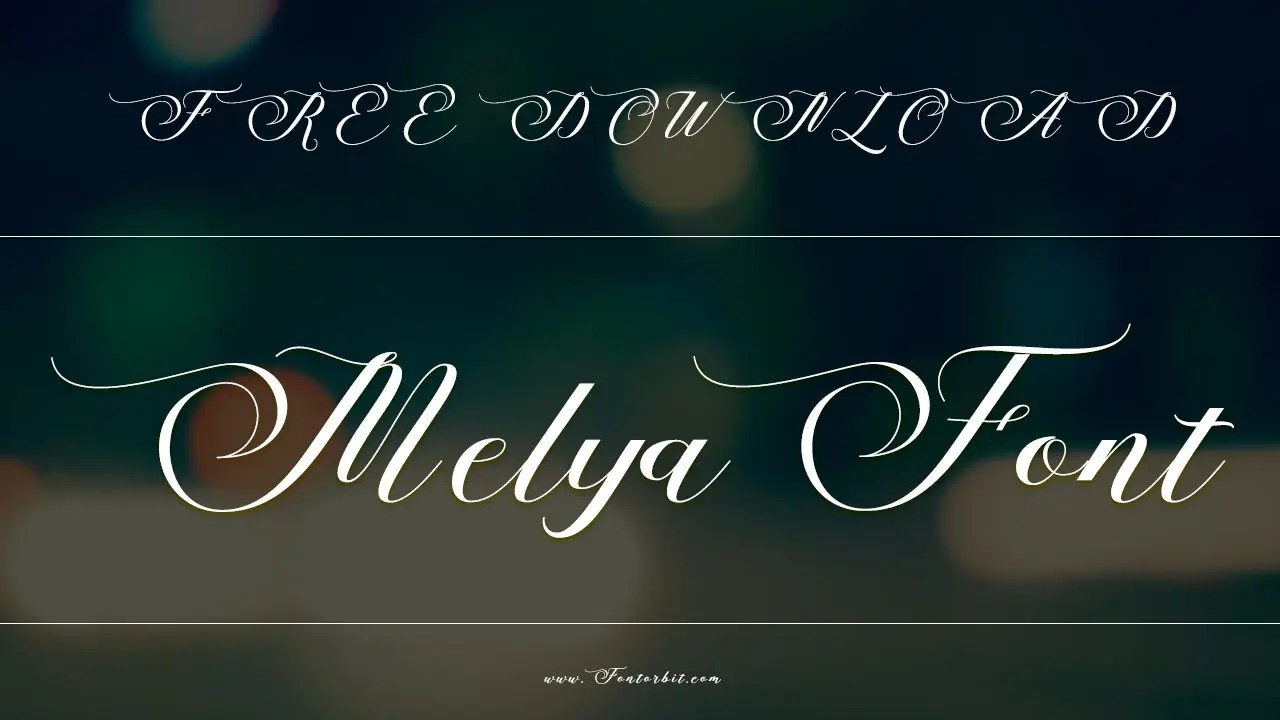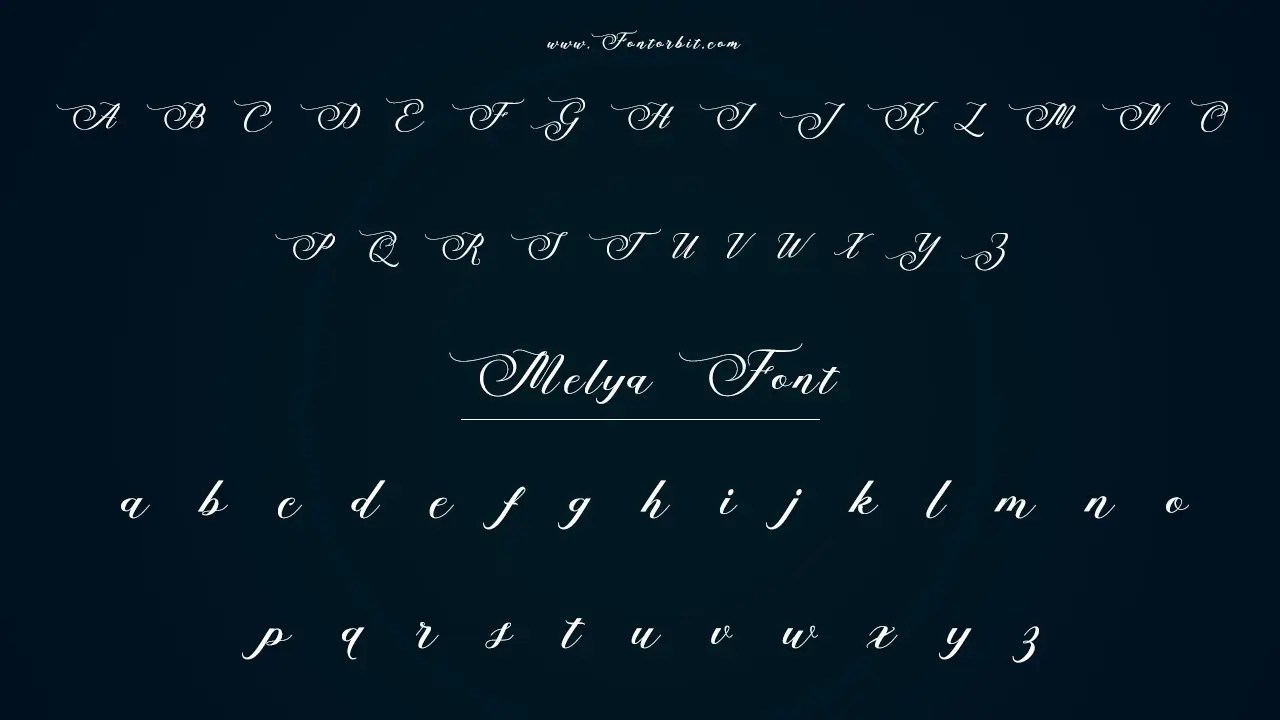
Melya Font is a sophisticated handwritten script that brings elegance and charm to branding, typography, and digital designs. Designed by Eko Bimantara, with its flowing strokes, graceful ligatures, and detailed special characters, this font is perfect for projects requiring a refined and luxurious aesthetic.
Melya Font is easy to use and supports multiple languages, making it a great choice for designers working on branding projects, logos, posters, labels, and printed materials. Whether you’re designing a website or crafting typography for a high-end product, this font adds an element of sophistication.
Melya Font Family
Melya Font is available in one elegant style:
- Melya Regular
| Style: | Calligraphy |
Key Features Of Melya Font
- Handwritten Script: Delivers a natural, flowing design ideal for branding
- Special Characters & Ligatures: Enhances creativity in typography
- Multilingual Support: Includes accents and symbols for various languages
- Perfect for Print & Digital: Suitable for posters, branding projects, typography-based designs, and email marketing
Where To Use Melya Font?
This font is ideal for:
- Branding & Logo Design – Adds sophistication to brand identity
- Luxury Products – Works well for high-end packaging and labels
- Website Typography – Enhances the elegance of website content
- Printed Materials – Ideal for invitations, business cards, and brochures
- Quotes & Social Media Graphics – Creates eye-catching, stylish text
| Font Style | Script, Calligraphy |
| Designer | Eko Bimantara |
| Font Family | Melya Regular |
Final Thoughts
Melya Font is a must-have for designers looking to create sophisticated branding and stylish typography. With its elegant script style, multilingual support, and smooth flow, this font elevates any design project whether it’s a website, a luxury brand logo, or a printed material.
2.What Is The Best Use Case For Melya Font?
It’s ideal for branding, typography, printed materials, and luxury product packaging.
5.What Colors Complement Melya Font?
Gold, deep blue, soft pastels, and monochrome tones enhance its elegant look.